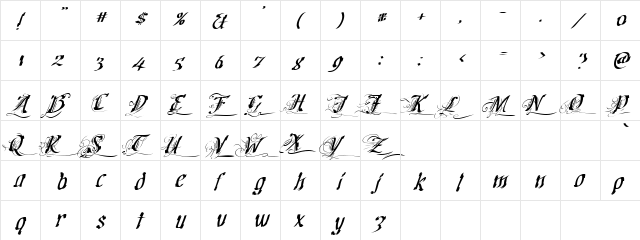
Funda Regular
Design Context for Funda Typeface
Funda trades formality for fun, with bouncy, characterful letterforms that bring warmth and energy to any project.
Font Pairing: Pairs well with a rounded or humanist sans for body copy, maintaining the friendly tone without relying on Funda to carry extended reading.
Pro Tip: Use Funda at larger display sizes where its expressive character can land. Pair with a clean, simple sans for body copy to maintain readability.